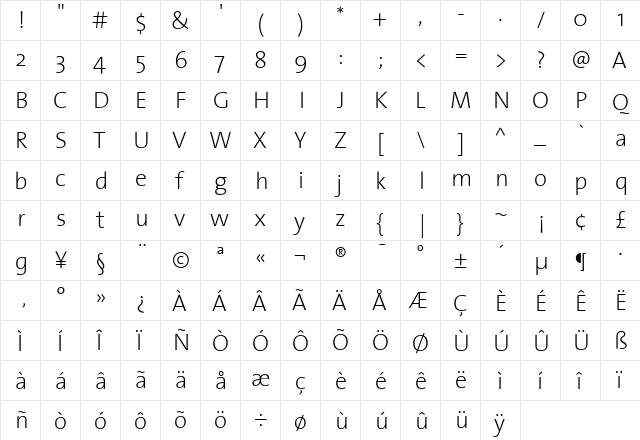
The Sans Extra Light- Regular
Design Context for The Sans Extra Light- Typeface
The Sans Extra Light- takes a measured approach to typography — its balanced proportions and neutral character make it a reliable workhorse for both digital and print work. The delicate stroke weight brings airiness and refinement to layouts.